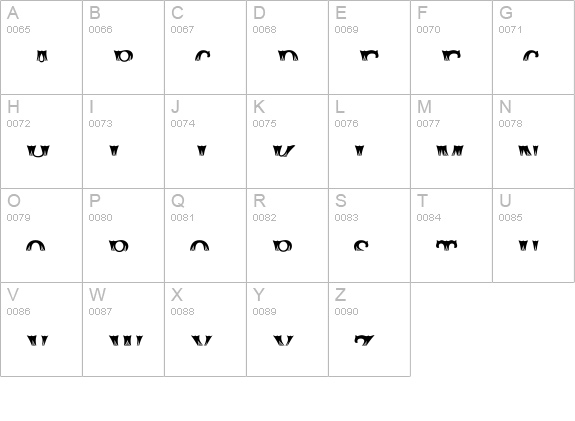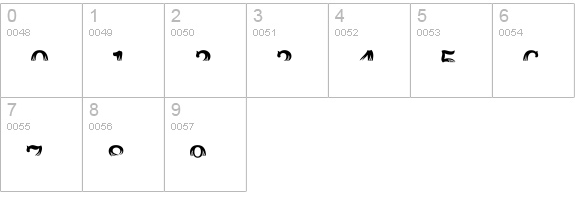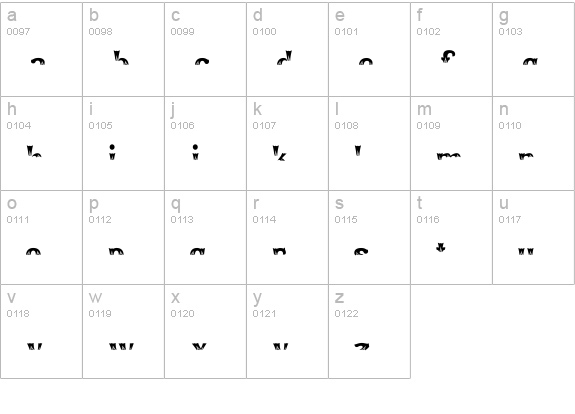
Rodeo Clown Half Fill Font Details
Rodeo Clown Half Fill font is a playful and whimsical display typeface that exudes a fun and energetic vibe. With its unique design featuring half-filled letters and a hand-drawn aesthetic, this font is perfect for adding a touch of personality to your projects. Whether you're working on a poster, logo, or social media graphic, Rodeo Clown Half Fill font will surely make your text stand out. What's even better is that this font is available for free download at FontsMarket.com. You can easily access this charming typeface and use it in your designs without any cost. So why wait? Add a splash of creativity to your projects with Rodeo Clown Half Fill font today!